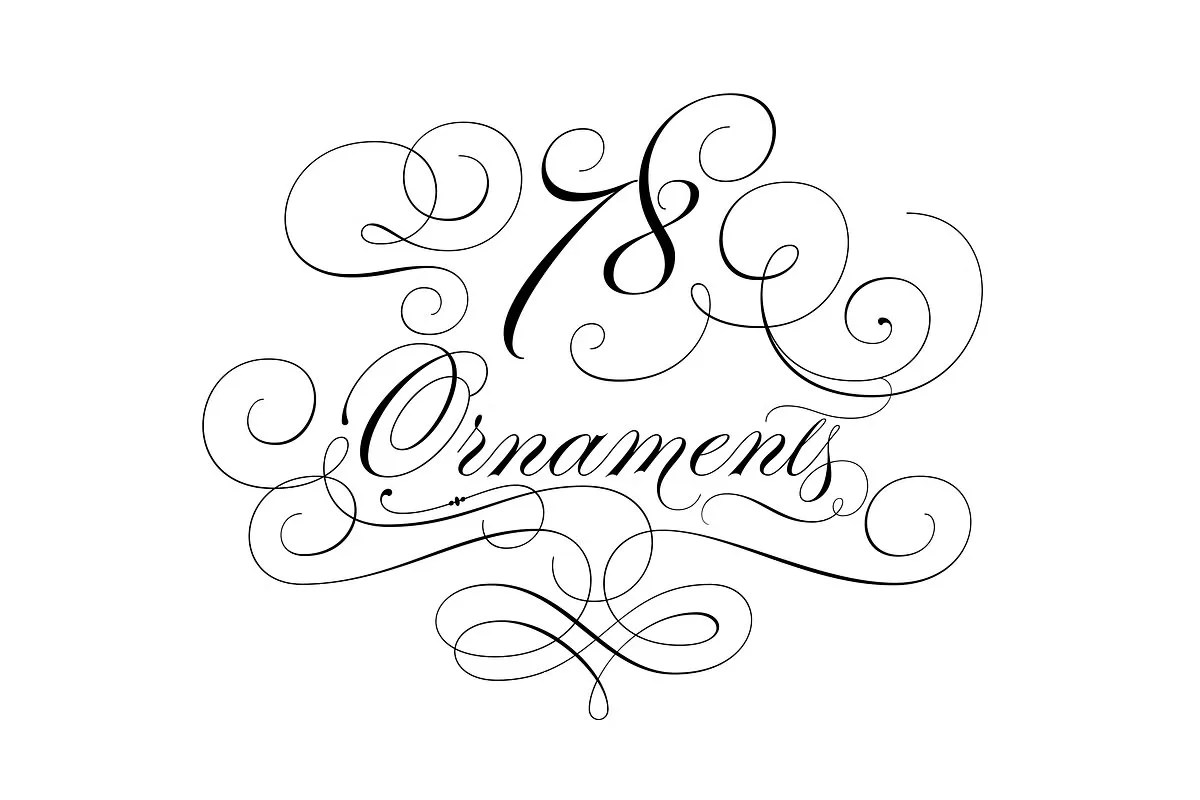
Parfumerie by Typesenses, a breathtakingly elegant script font that whispers of luxury and timeless romance. Like the delicate trail of a fine perfume, Parfumerie flows across the page with graceful connections, delicate strokes, and beautifully crafted letterforms. This font is designed for projects that require an unforgettable touch of human elegance and refined beauty.
Parfumerie is the perfect choice for high-end perfume branding, wedding invitations, signature logos, and luxury packaging. Use it to add a personal, romantic touch to greeting cards, craft beautiful headlines for lifestyle blogs, or design social media content that feels both intimate and aspirational.
• Elegant and flowing script style
• Features graceful connections and delicate strokes
• Ideal for wedding, luxury, and signature branding
• Creates a romantic and sophisticated mood
Parfumerie